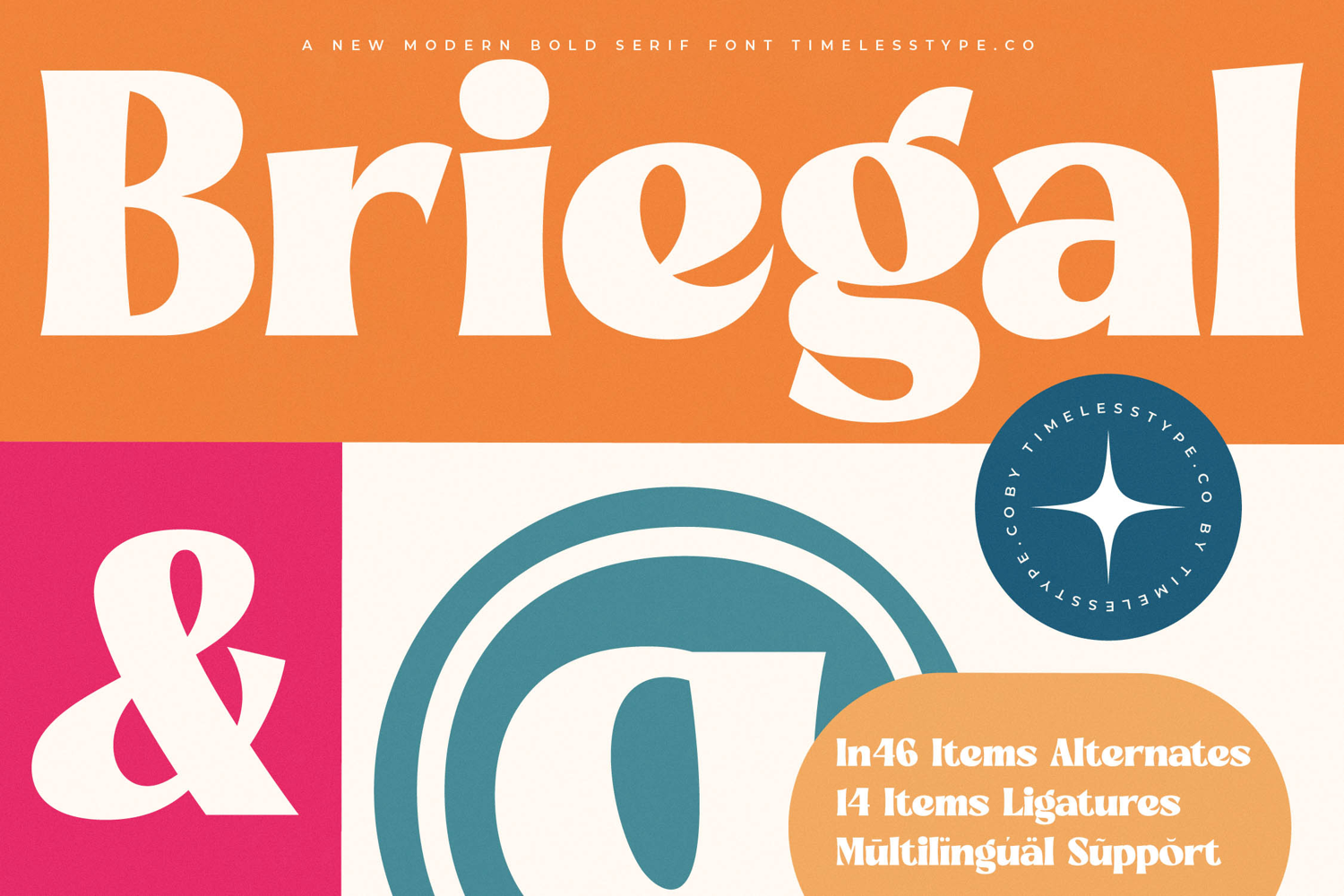
Briegal - New Modern Bold Serif
Elevate your designs with Font Briegal - New Modern Bold Serif Serif Display, a truly captivating typeface that redefines modern elegance. This bold serif display font exudes a sophisticated charm, blending classic readability with a contemporary, high-impact presence. Its distinctive shapes and confident lines command attention, ensuring your message is both seen and remembered with an unmistakable sense of refinement and flair.
Discover unparalleled versatility through the rich character set of Font Briegal - New Modern Bold Serif Serif Display. Featuring a harmonious blend of substantial serifs and elegant curves, this font offers a unique aesthetic that is both timeless and current. Its thoughtful design includes numerous alternates and ligatures, providing extensive creative freedom to craft truly bespoke and memorable typographic compositions for any project.
Global reach is effortlessly achieved with Font Briegal - New Modern Bold Serif Serif Display. With its extensive multilingual support, Font Briegal - New Modern Bold Serif Serif Display adapts seamlessly across global markets, making it incredibly versatile for international projects. This comprehensive language coverage ensures your brand communication resonates worldwide, maintaining its refined aesthetic integrity across diverse linguistic landscapes.
Perfect for making a powerful statement, Font Briegal - New Modern Bold Serif Serif Display is an indispensable asset for luxury branding, editorial headlines, sophisticated packaging, and impactful advertising. Its striking display quality makes it ideal for magazine covers, poster design, and any application demanding an elegant yet assertive typographic voice. Choose Font Briegal - New Modern Bold Serif Serif Display to infuse your work with unmatched distinction.